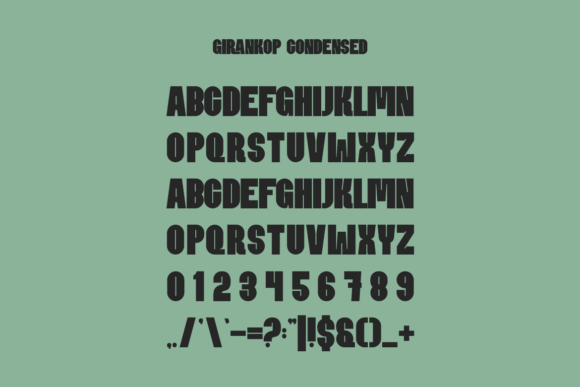
Girankop Condensed Font: A Bold and Modern Display Font
In the world of typography, fonts play a crucial role in conveying messages, expressing emotions, and creating visual identities. Among the numerous fonts available, Girankop Condensed stands out as a bold, eye-catching display font that has gained popularity for its modern and strong look. In this article, we’ll delve into the features, benefits, and uses of Girankop Condensed, exploring why it’s perfect for making a statement in headlines, posters, and logos.
What is Girankop Condensed Font?
Girankop Condensed is a sans-serif font designed with a condensed style, which gives it a sleek and compact feel. The font’s modern and strong appearance makes it ideal for use in display settings, such as headlines, titles, and captions. Its bold nature allows it to grab attention, making it perfect for designs that require a statement piece.
Key Features of Girankop Condensed Font
- Condensed Design: The font’s condensed style allows for a compact and sleek appearance, making it perfect for use in tight spaces or for creating a dramatic effect.
- Bold and Eye-Catching: Girankop Condensed is a bold font that grabs attention, making it ideal for headlines, posters, and logos.
- Modern and Strong Look: The font’s modern design gives it a fresh and contemporary feel, while its strong appearance makes it perfect for creating a lasting impression.
- High Readability: Despite its condensed style, Girankop Condensed maintains high readability, making it easy to read and understand.
Benefits of Using Girankop Condensed Font
Using Girankop Condensed font offers several benefits, including:
- Versatility: The font’s bold and modern design makes it suitable for a wide range of design projects, from posters and logos to headlines and captions.
- Attention-Grabbing: Girankop Condensed’s bold nature ensures that it grabs attention, making it perfect for designs that require a statement piece.
- Professional Look: The font’s modern and strong appearance gives designs a professional and contemporary look.
- Easy to Read: Despite its condensed style, Girankop Condensed maintains high readability, making it easy to read and understand.
Use Cases for Girankop Condensed Font
Girankop Condensed font is perfect for a variety of design projects, including:
- Headlines and Titles: The font’s bold and eye-catching design makes it ideal for use in headlines and titles.
- Posters and Flyers: Girankop Condensed’s modern and strong appearance makes it perfect for use in posters and flyers.
- Logos and Branding: The font’s bold and contemporary design makes it suitable for use in logos and branding materials.
- Captions and Taglines: Girankop Condensed’s condensed style and high readability make it perfect for use in captions and taglines.
Tips for Using Girankop Condensed Font
To get the most out of Girankop Condensed font, follow these tips:
- Use it Sparingly: Girankop Condensed is a bold font, so use it sparingly to avoid overwhelming the design.
- Pair it with Other Fonts: Pair Girankop Condensed with other fonts to create visual interest and add depth to the design.
- Experiment with Colors: Experiment with different colors to find the perfect combination that complements the font.
- Consider the Context: Consider the context in which the font will be used and adjust the design accordingly.
Girankop Condensed font is a bold, eye-catching display font with a modern and strong look. Its condensed design gives it a sleek, compact feel while maintaining readability. With its versatility, attention-grabbing nature, and professional look, Girankop Condensed is perfect for making a statement in headlines, posters, and logos. By following the tips outlined in this article, designers can get the most out of Girankop Condensed and create stunning designs that leave a lasting impression.
- What is Girankop Condensed font? Girankop Condensed is a bold, eye-catching display font with a modern and strong look.
- What are the key features of Girankop Condensed font? The font’s key features include its condensed design, bold and eye-catching nature, modern and strong look, and high readability.
- What are the benefits of using Girankop Condensed font? The benefits of using Girankop Condensed font include its versatility, attention-grabbing nature, professional look, and ease of reading.
- What are some use cases for Girankop Condensed font? Girankop Condensed font is perfect for use in headlines and titles, posters and flyers, logos and branding, and captions and taglines.